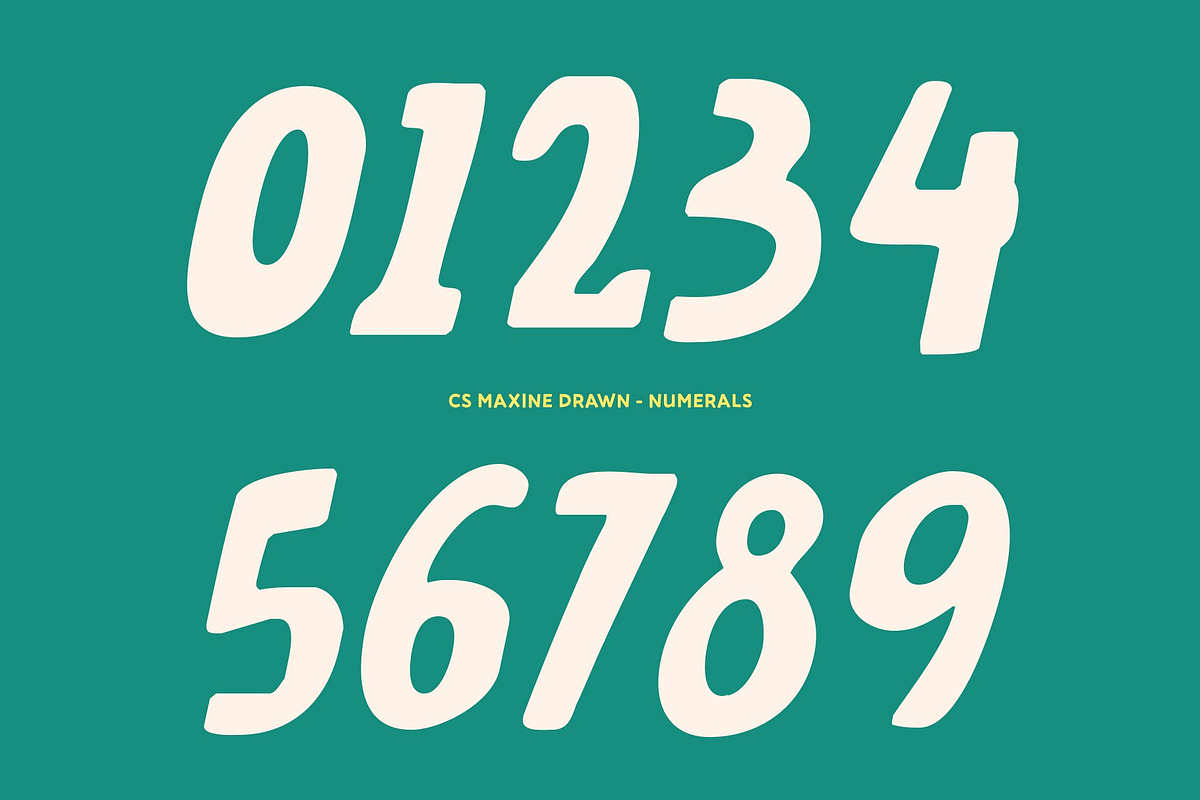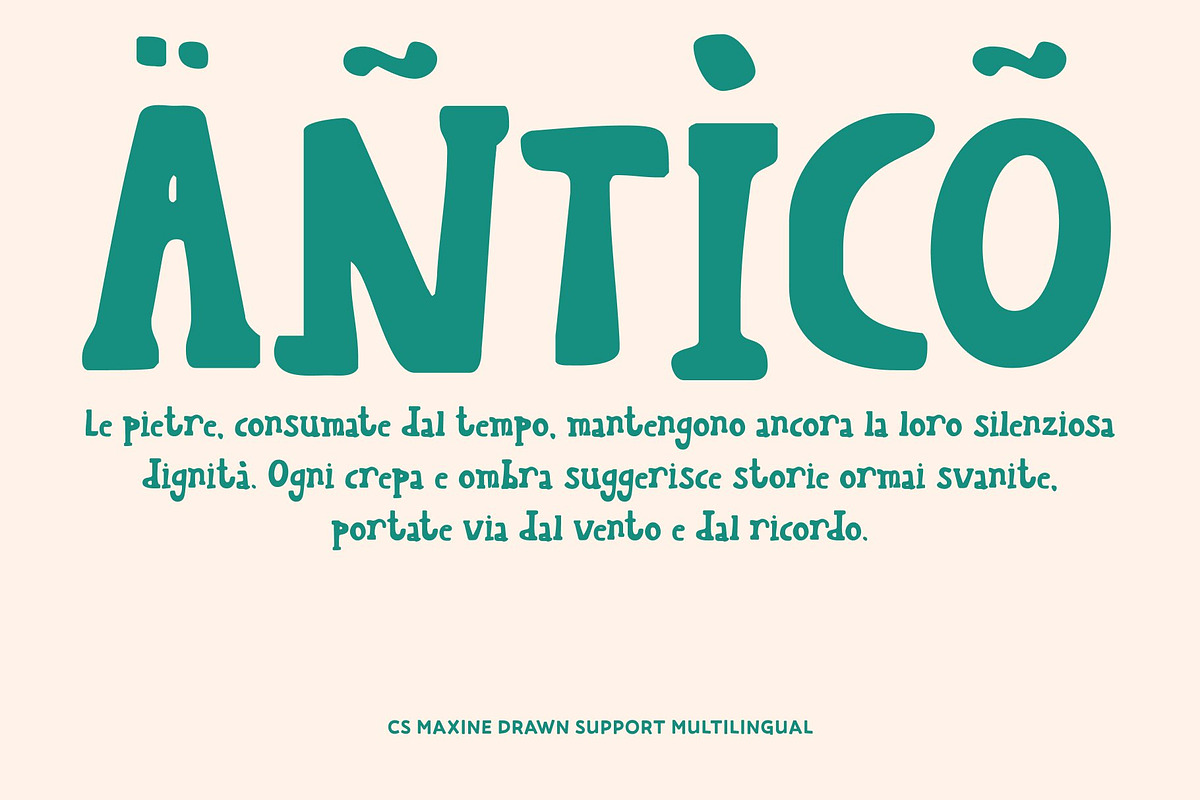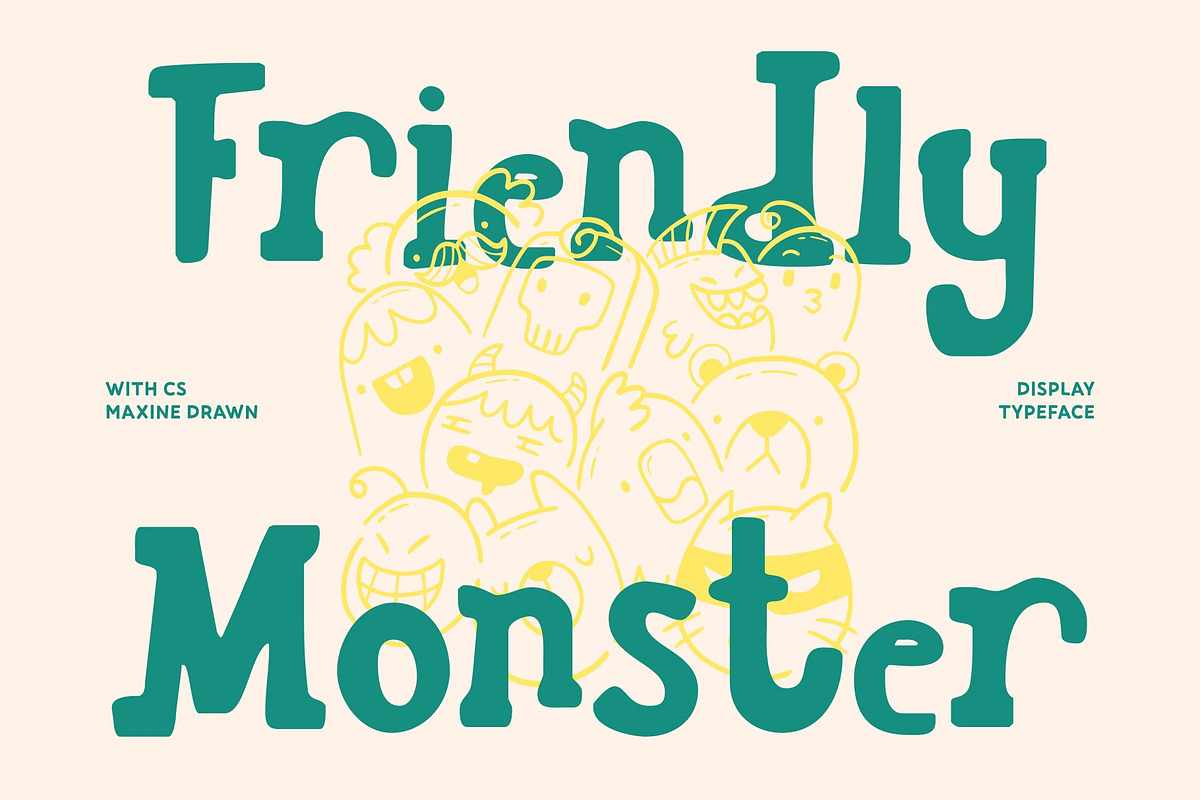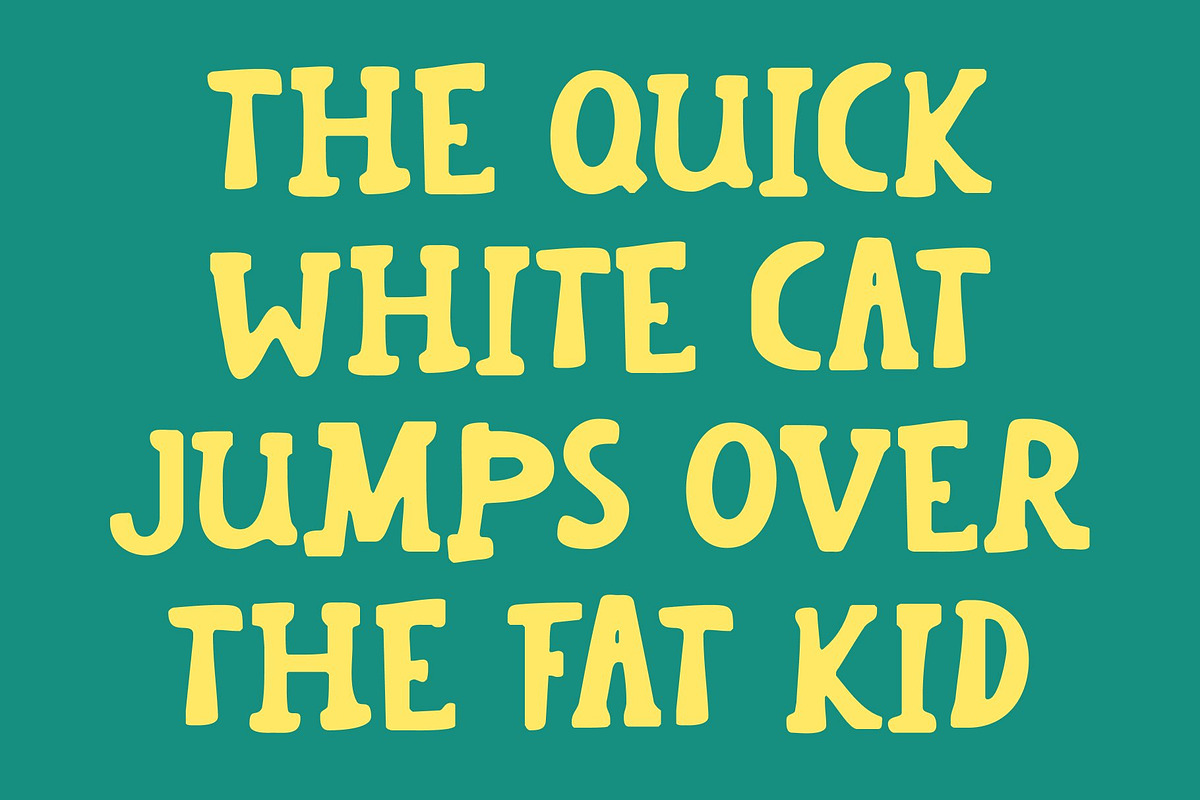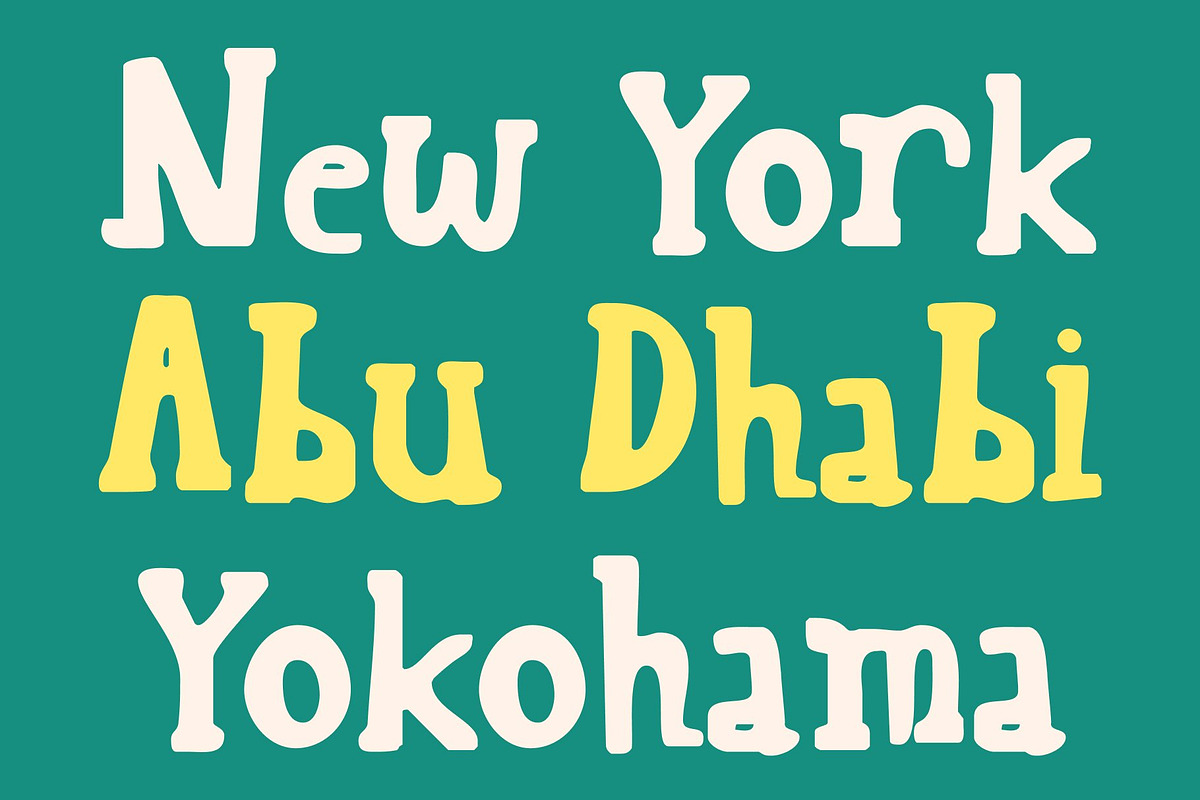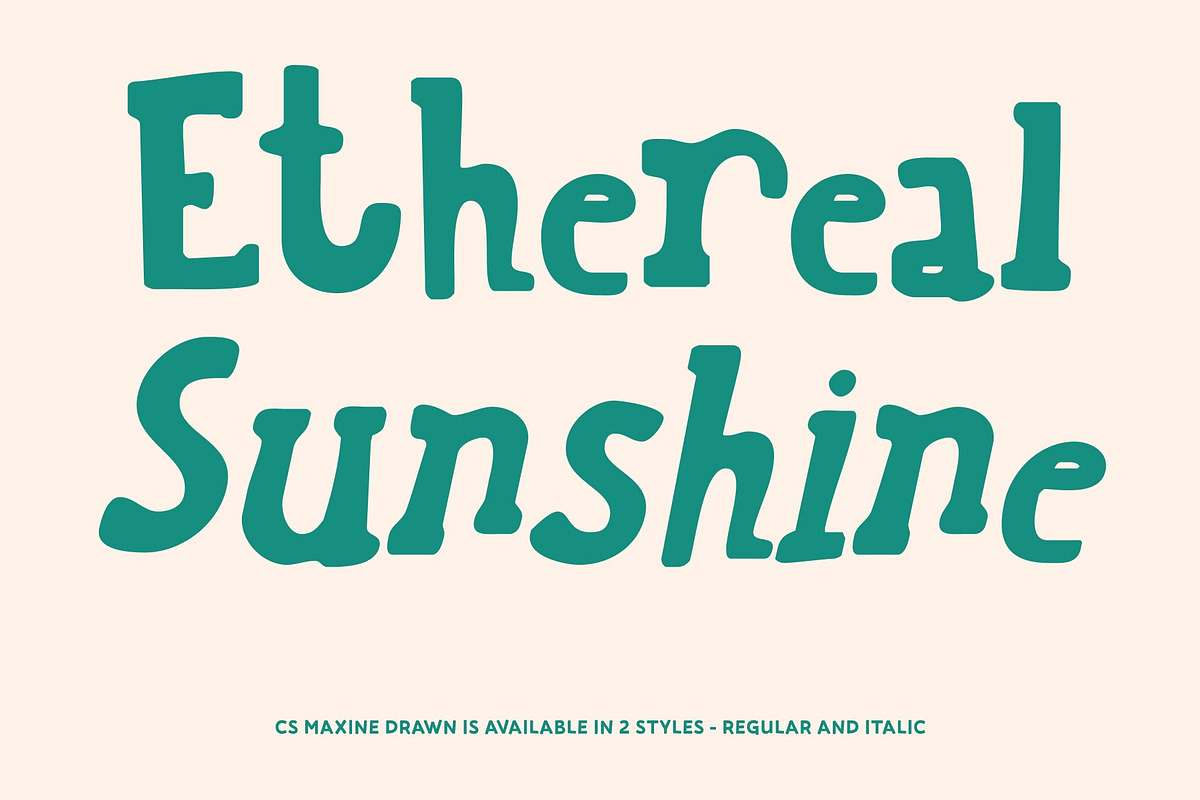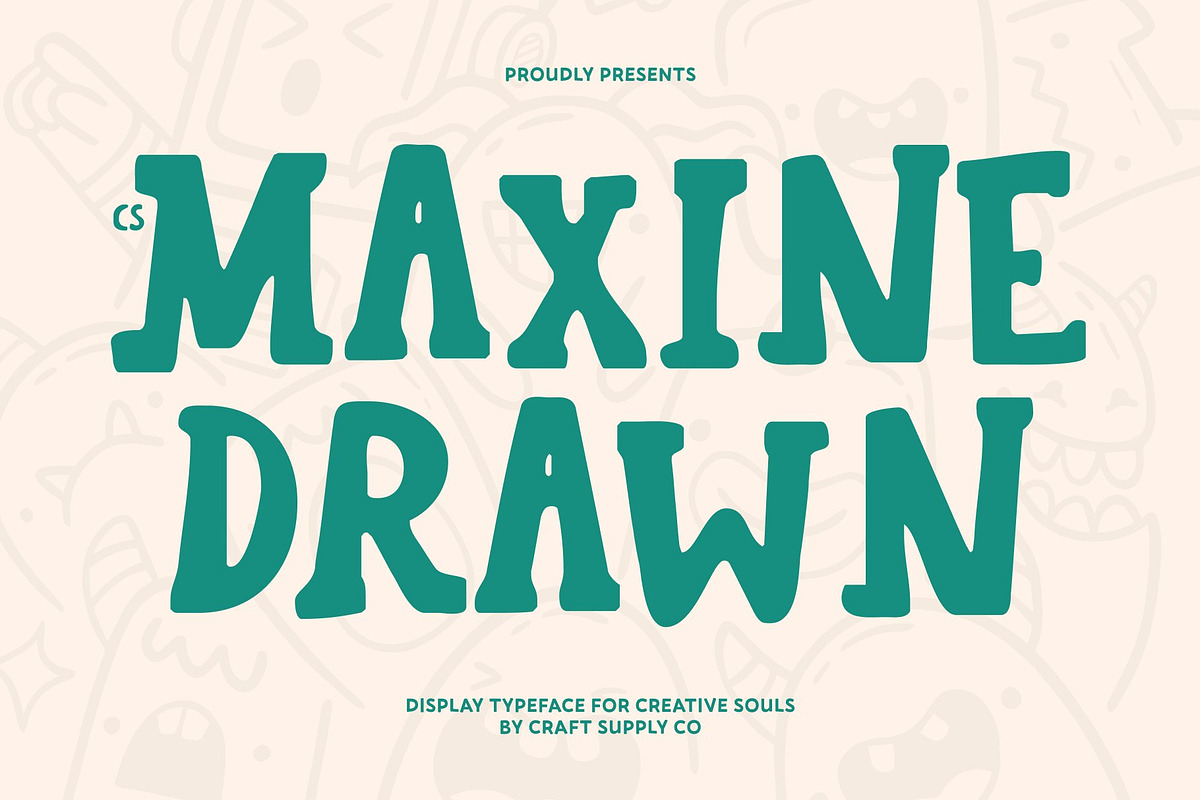
CS Maxine Drawn
CS Maxine Drawn – Playful Slab Serif with Handcrafted Charm
Handwritten Slab Serif with Cheerful Personality This is a playful slab serif font that blends solid typographic structure with the warmth of handwritten expression. Its sturdy slab serifs provide balance and readability, while the drawn effect introduces a natural, handcrafted texture that makes every letter feel friendly, lively, and full of personality.
Expressive Strokes with Funky, Cheerful Energy The organic strokes and subtle irregularities give this font a joyful, upbeat character. Each letter feels slightly imperfect in a charming way, creating a playful rhythm that brings text to life. This expressive quality makes the font feel fun and approachable without losing its visual clarity.
Modern Stability with a Friendly Touch By combining slab serif strength with casual handwritten details, this font achieves a unique balance between modern structure and human warmth. It communicates creativity and confidence while remaining inviting and easy to read, making it suitable for both bold displays and expressive layouts.
Perfect for Titles, Posters, and Creative Projects This font shines in titles, posters, branding, packaging, and creative campaigns that need personality and charm. Its playful texture, strong letterforms, and handcrafted feel ensure your designs stand out with freshness, character, and joyful visual appeal.
- CS Maxine Drawn Regular
- CS Maxine Drawn Italic